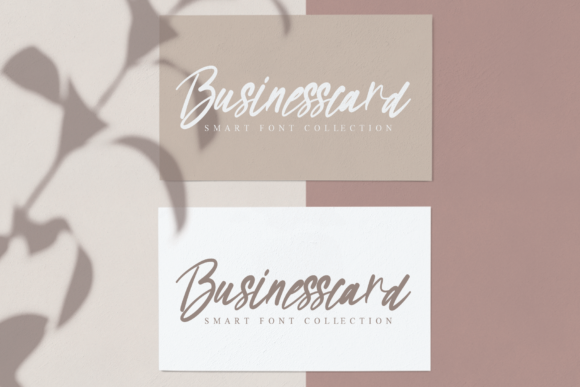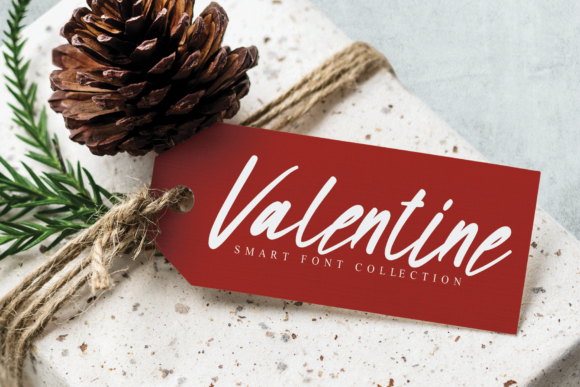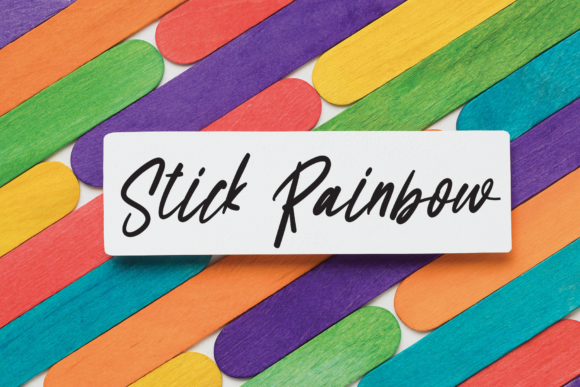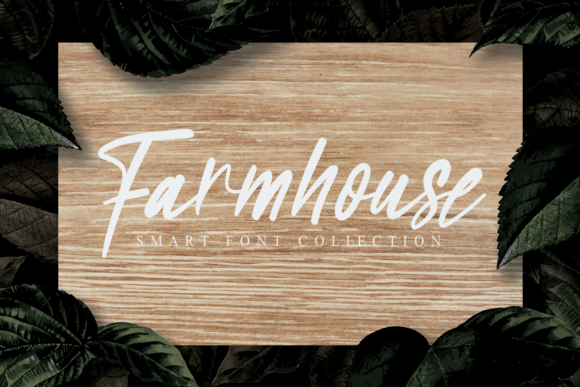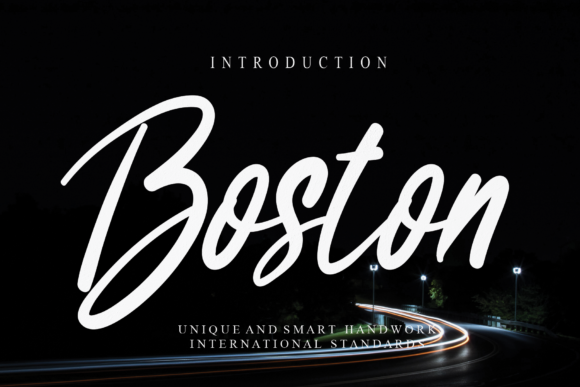
The Boston Font: A Lovely, Paint-Brushed Handwritten Delight
I’ll never forget the time I was working on a design project for a client who wanted a font that was both trendy and elegant. I had spent hours scouring the internet for the perfect font, but nothing seemed quite right. That was until I stumbled upon the Boston font. With its fluid, paint-brushed style, it was love at first sight! In this article, I’ll share my experience with the Boston font, its features, and how to make the most of it in your designs.
A Personal Review: What I Love About Boston Font
The Boston font has quickly become one of my go-to fonts for a variety of design projects. Here are some things I love about it:
- ✨ Trendiness**: The Boston font has a lovely, modern feel to it that’s perfect for designs that need a bit of flair.
- ✅ Versatility: It can easily match a wide range of designs, from elegant wedding invitations to more playful craft projects.
- 💫 Fluid style: The font’s fluid, paint-brushed style gives it a unique, hand-crafted feel that’s hard to find in digital fonts.
While the Boston font is an excellent choice for many designs, there are a few things to keep in mind:
- 🤔 Legibility at small sizes: Like many script fonts, the Boston font can be a bit tricky to read at very small sizes. Make sure to test it out at different sizes to ensure it’s legible for your project.
- ⚠️ Overuse of swashes: While the font’s swashes are beautiful, using too many can make the text difficult to read. Use them sparingly to add a touch of elegance.
A Practical Guide: Using Boston Font in Your Designs
The Boston font was inspired by the beautiful, hand-painted signs found in the streets of Boston. The designer, who wishes to remain anonymous, wanted to capture the essence of the city’s vibrant art scene in a digital font. The result is a font that’s both elegant and trendy, perfect for designs that need a bit of flair.
| Font Name | Boston Font |
| What is the Boston font? | The Boston font is a lovely, paint-brushed handwritten font featuring a fluid style and a trendy feel. |
| Is the Boston font suitable for body text? | While the Boston font is beautiful, it’s best suited for headlines or short paragraphs. For longer body text, a more traditional font might be more readable. |